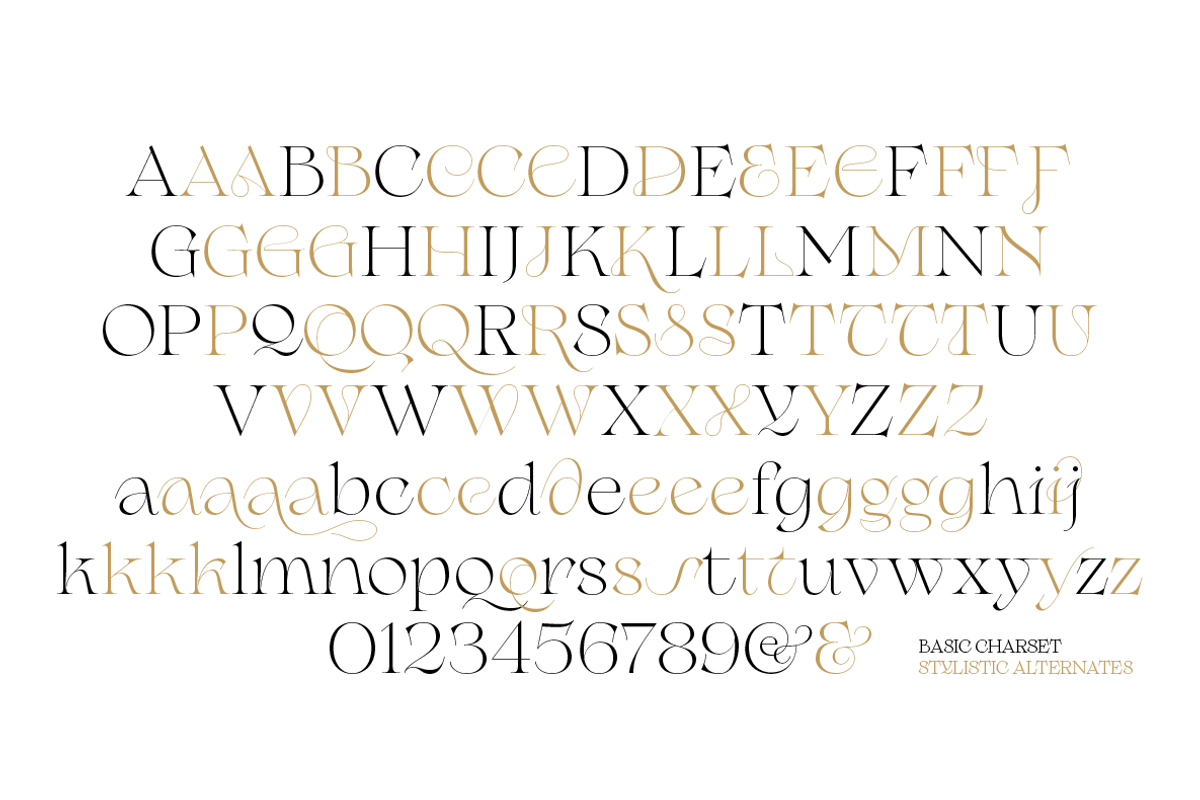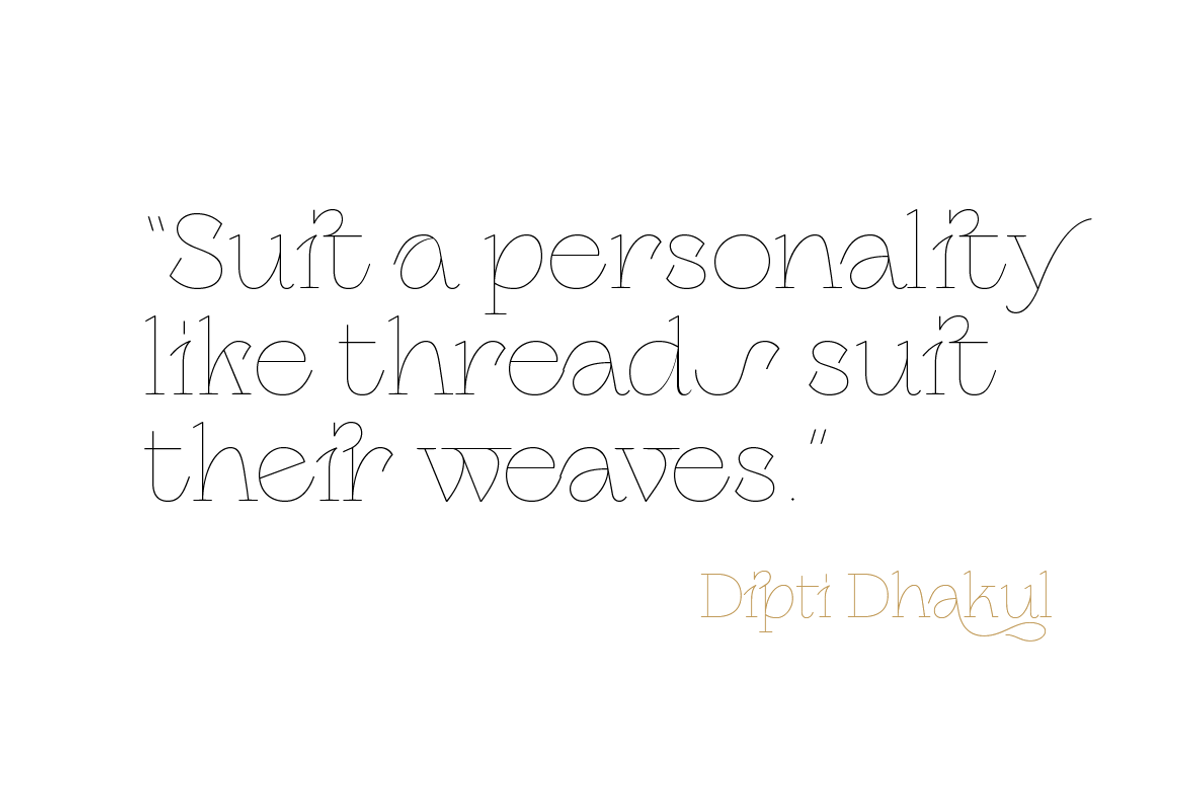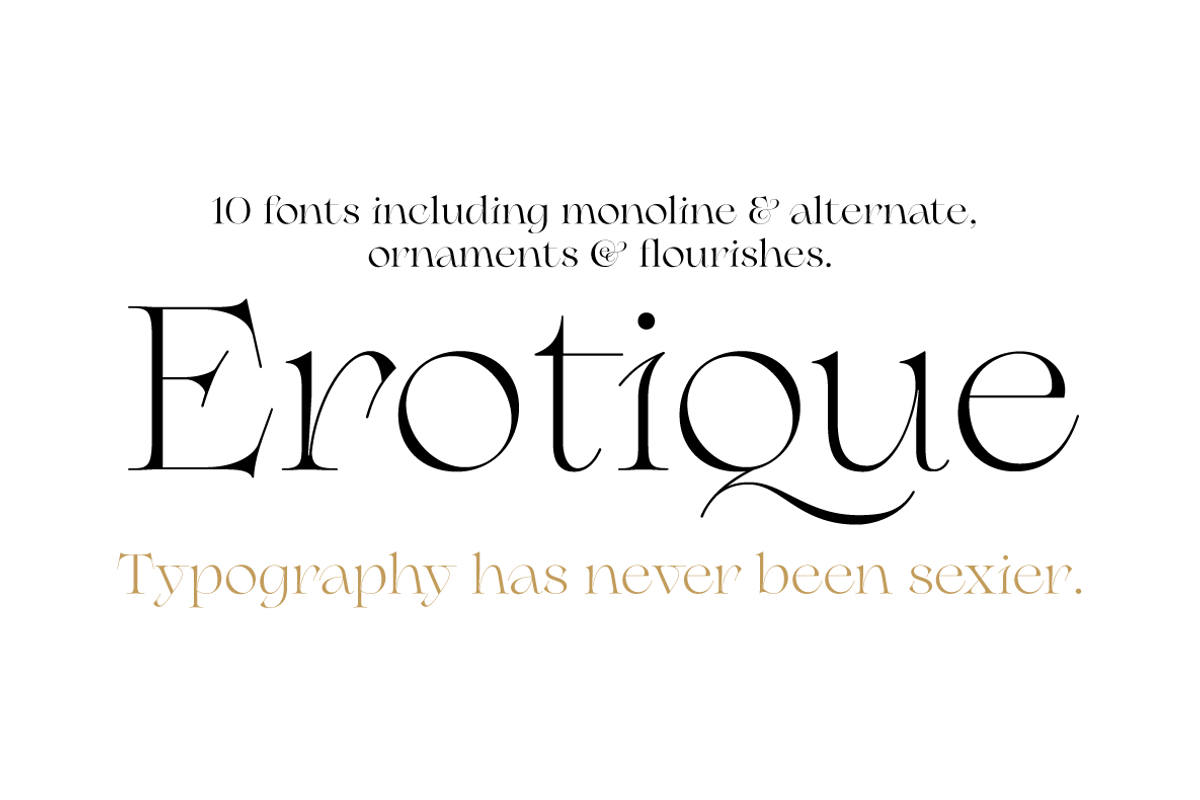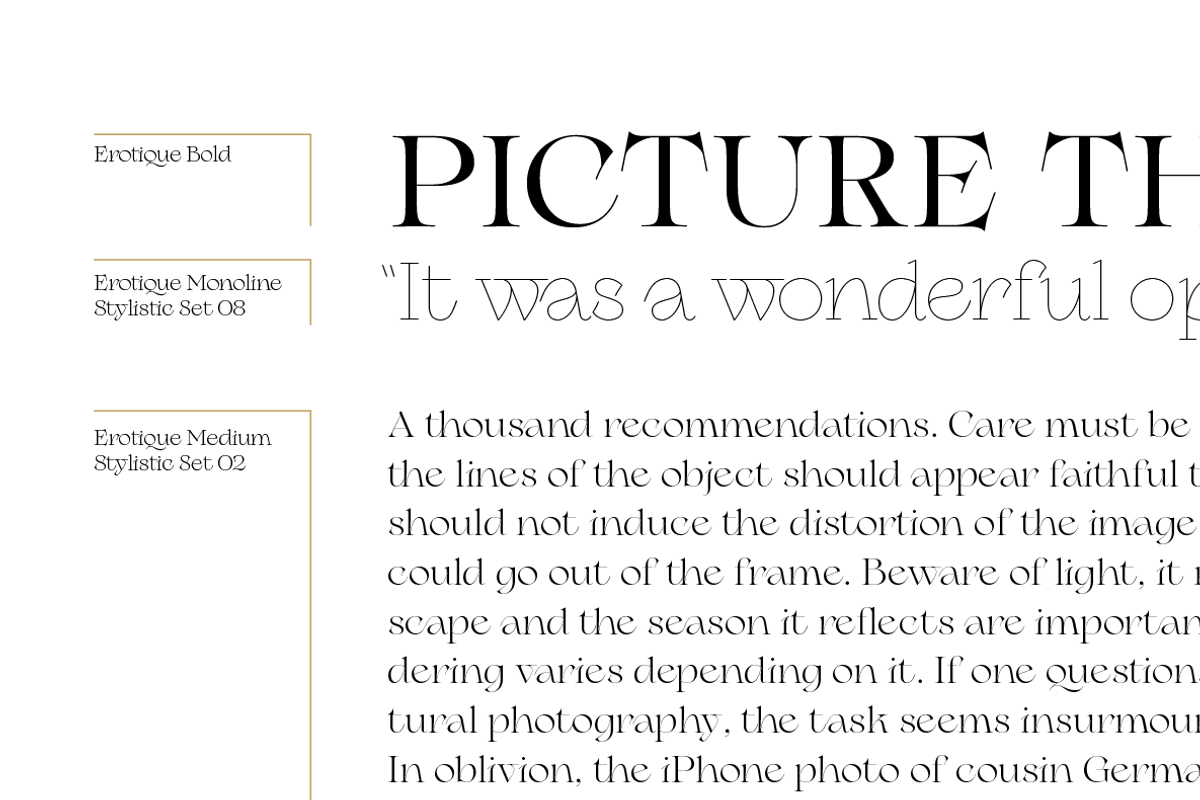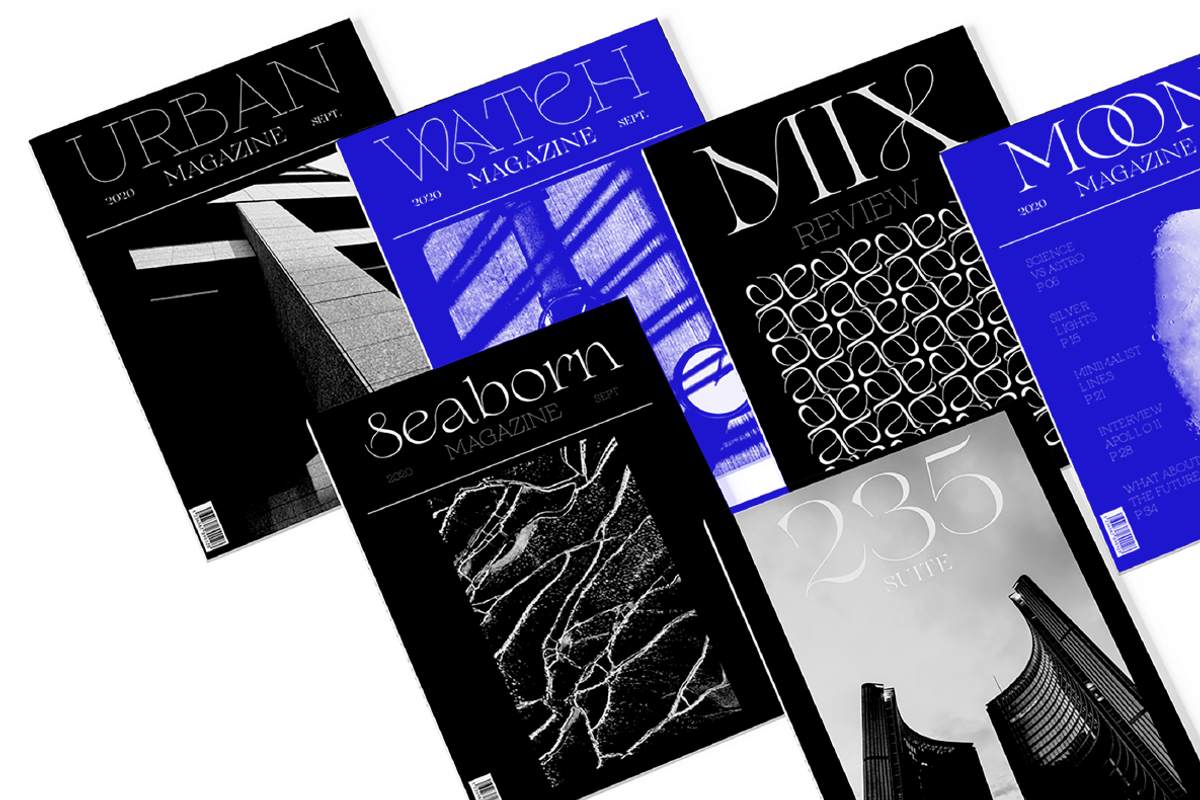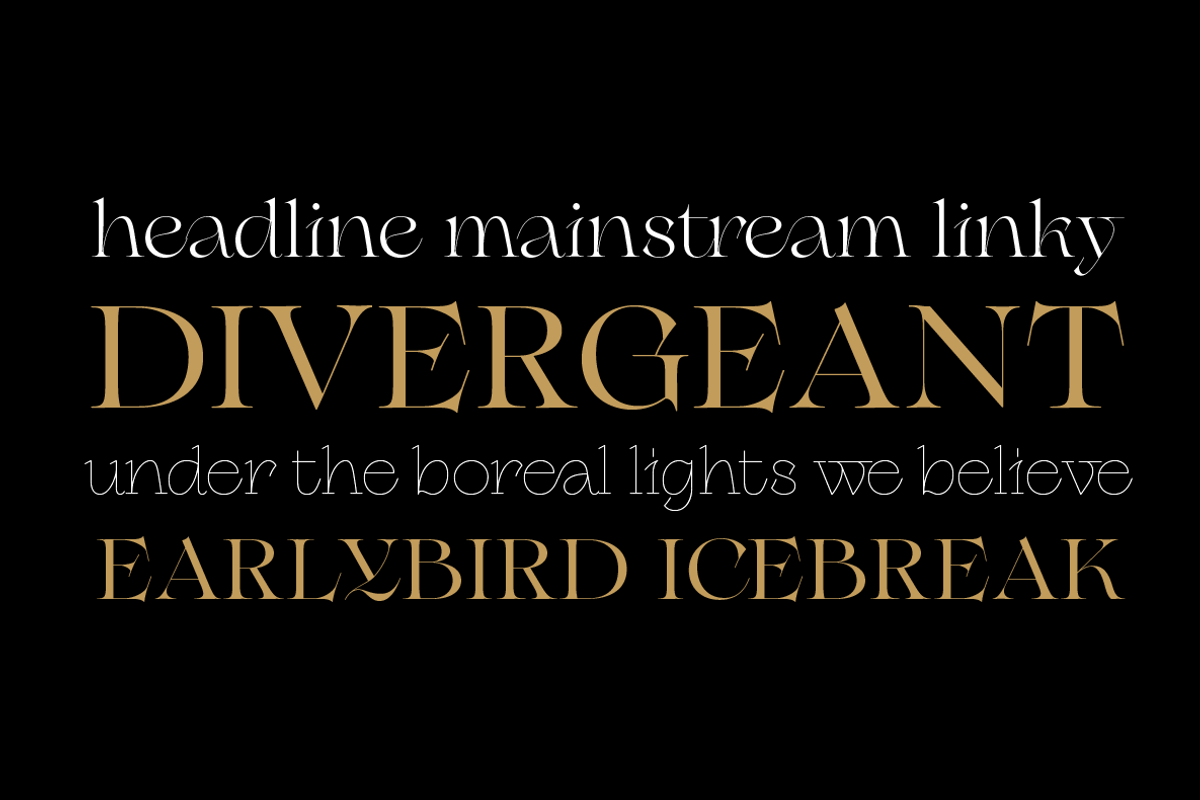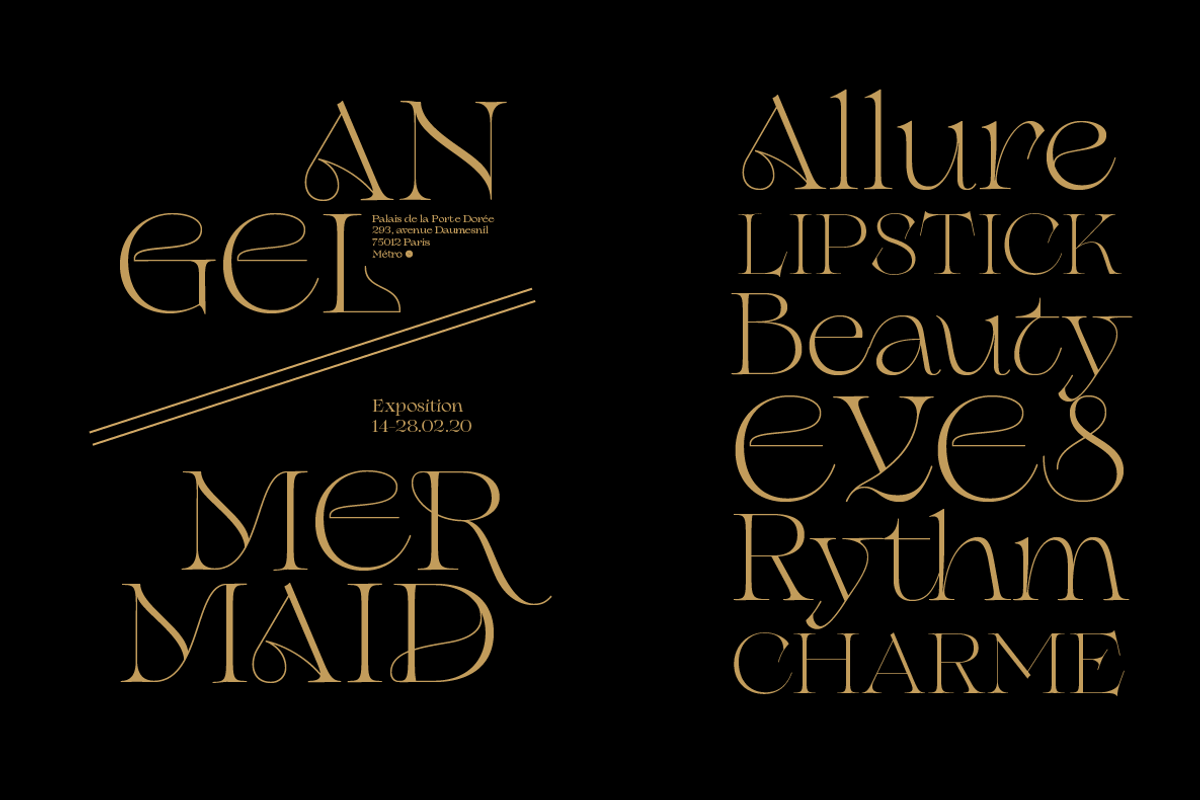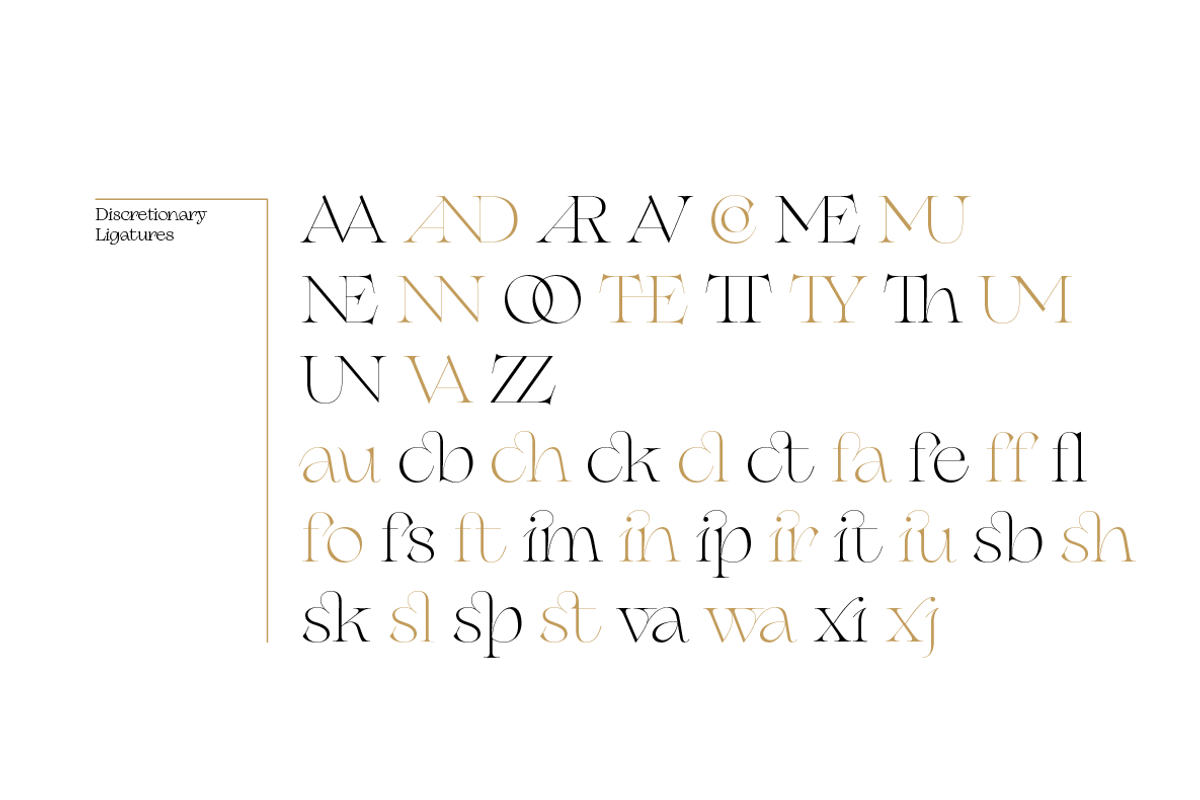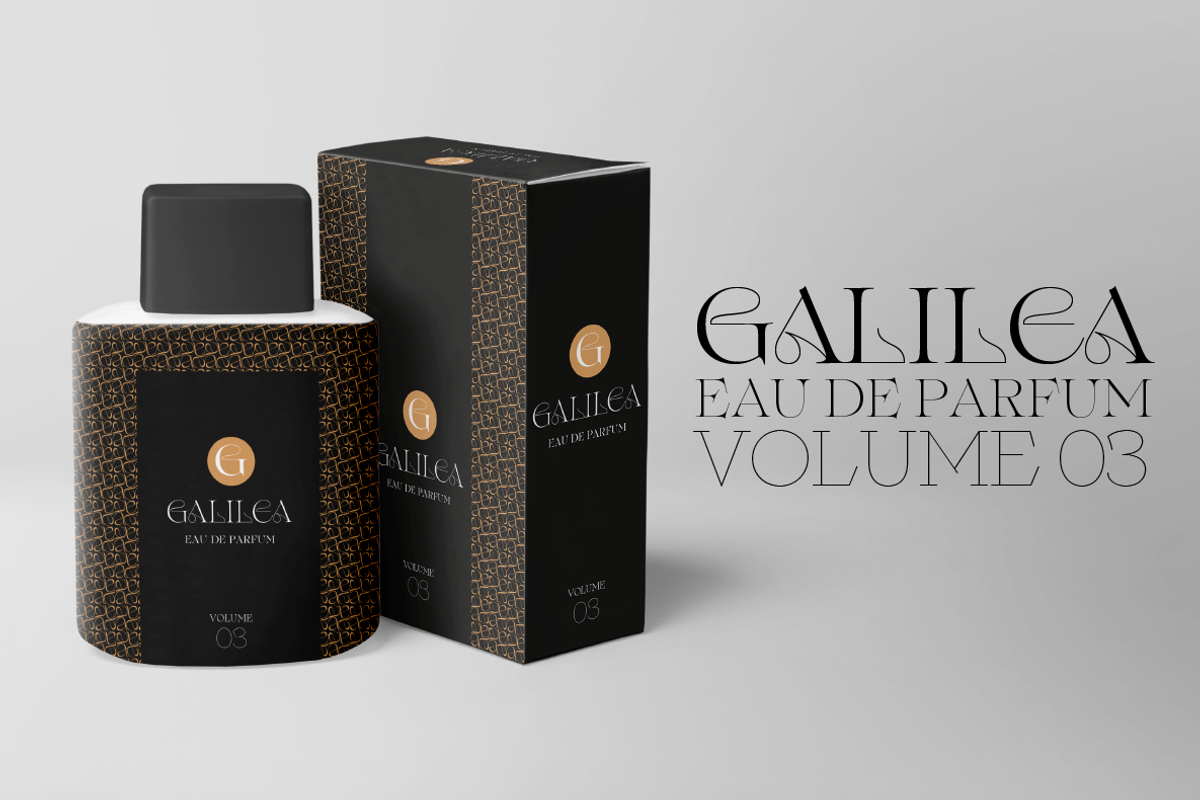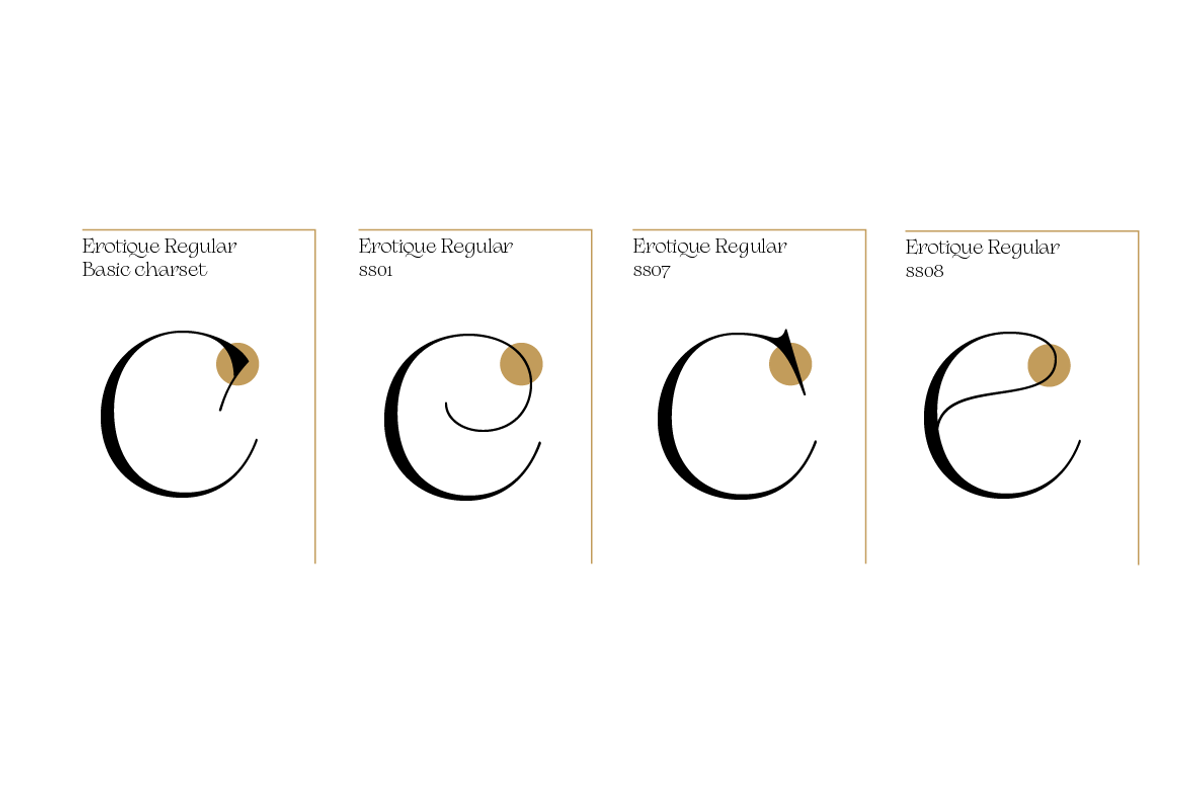
Erotique - 10 fonts
Designed by Cosimo Lorenzo Pancini and Mariachiara Fantini with the help of Solenn Bordeau, Erotique is an evolution of the original design by Zetafonts for Lovelace, that challenges its romantic curves with the glitchy and fluid aesthetic of trans-modern neo-brutalist typography. The seductive "evil serif" look of the Pheimester-like Oldstyle letter shapes is made edgier by the quirky connections and unexpected calligraphic twirls that marry digital distortions to traditional penmanship. Sensuous but sharp, Erotique speaks the language of teasing, and unrequited love, over-the-top and restrained like a show of Japanese Kinbaku, and beautifully heartbreaking like a friendzone valentine.
Designed for display use, this high-contrast serif typeface is ready to take center stage in projects where a subtle elegance and an edgy, aggressive touch are required. For branding use it is paired by a Erotique Ornaments, a set of interlocking patterns based on the font letter-shapes, allowing for striking packaging, digital and ambient design. For editorial use it can add a sharp sensuality to logos and titles thanks to an impressive array of alternate glyphs, subtle ligatures and a set of whiplike fleurons, collected in the Erotique Flourishes pack. The typeface has been developed in the regular, medium and bold weight plus a monoline version, all of which have been paired with an Alternate version to give immediate access the more exotic alternate letterforms.
With a character set of over five hundred glyphs, all the the weights of Erotique cover almost 200 languages using extended latin, and include advanced Open Type features as Stylistic Alternates, Standard and Discretionary Ligatures, Positional Numerals, Swash and Case Sensitive Forms. If you are a typeface lover, be warned: Erotique could be your fatal attraction!